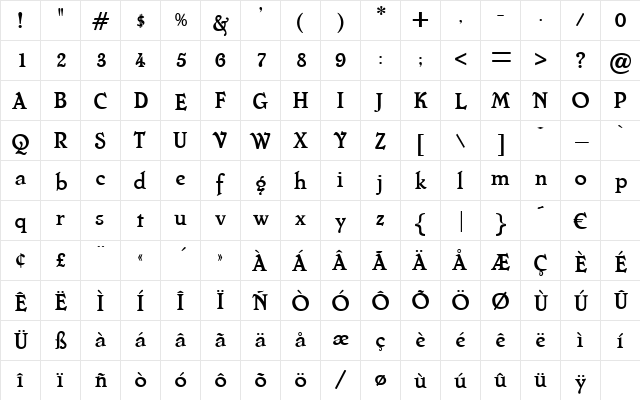
Cornish Regular
Design Context for Cornish Typeface
Cornish takes a measured approach to typography — its balanced proportions and neutral character make it a reliable workhorse for both digital and print work.